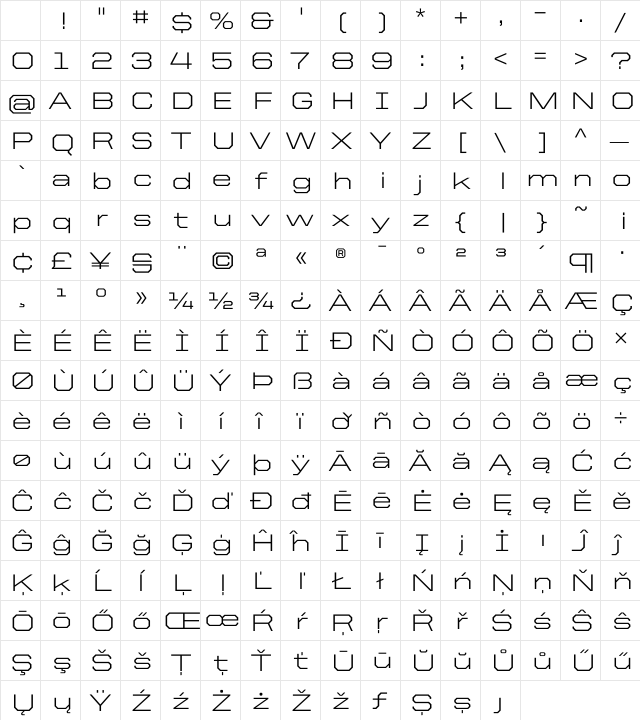
Complete United Sans Ext Light glyph index. Displaying only characters natively supported by United Sans Ext Light font.
United Sans Ext is a composed and adaptable typeface that performs quietly and consistently across a wide range of design contexts. Its slender proportions lend an understated elegance to any composition.